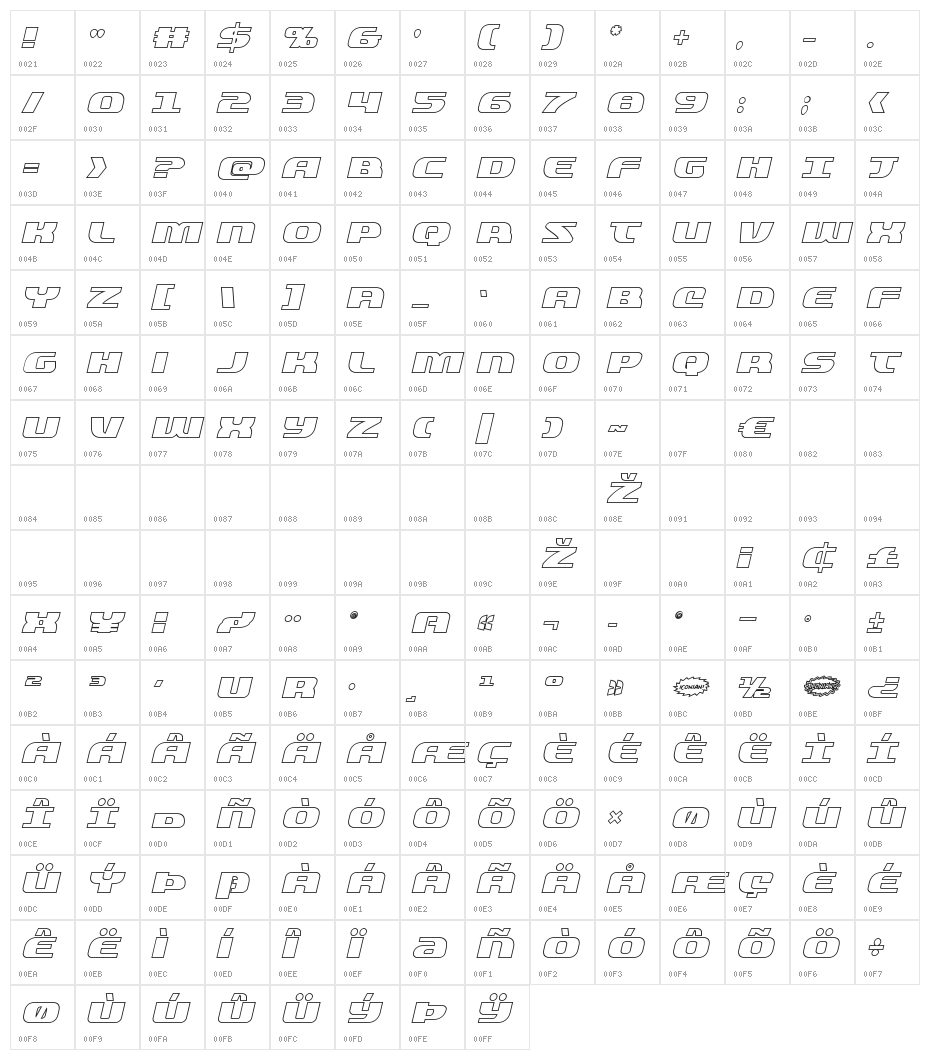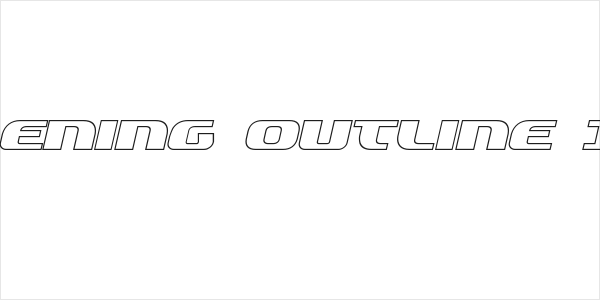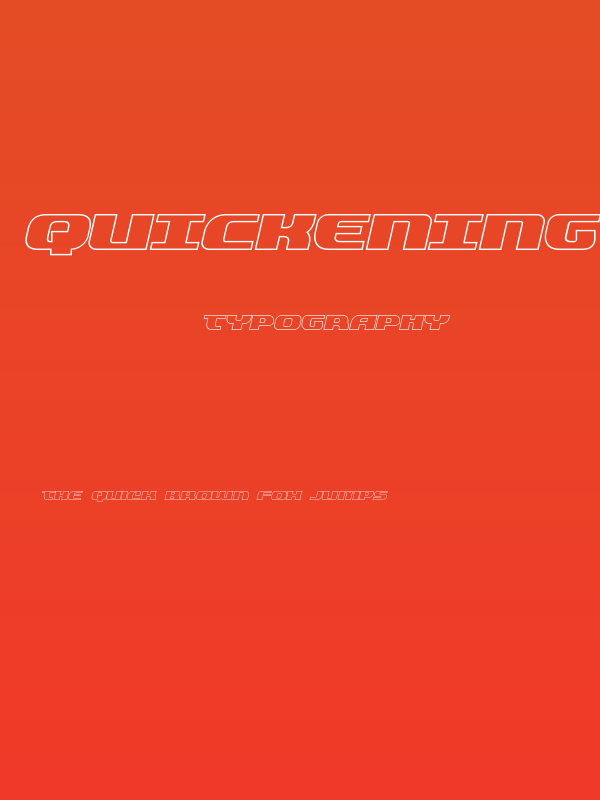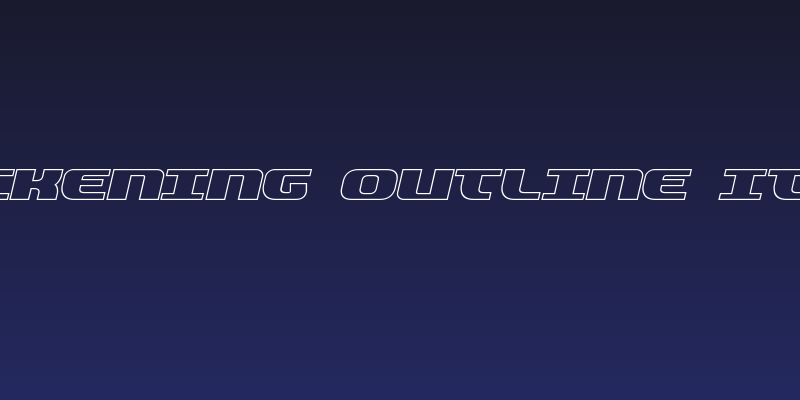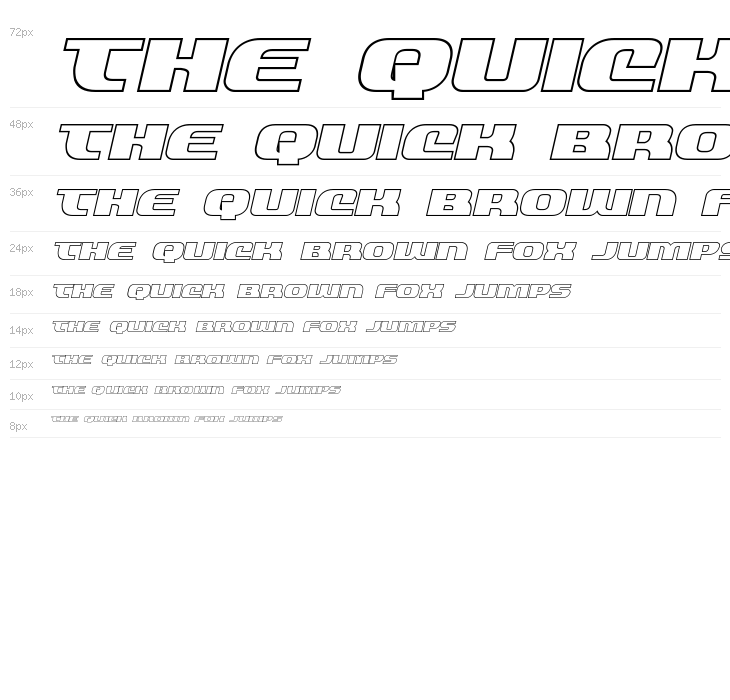
Quickening Outline Italic Font
Quickening Outline Italic Description
This font features a modern, dynamic outline style with a distinct italic slant, giving it a sense of motion and energy. The characters are bold and geometric, with clean lines and a futuristic aesthetic. The uppercase and lowercase letters maintain a consistent style, while the numerals and special characters complement the overall design. The outline effect adds a unique dimension, making it ideal for eye-catching designs.